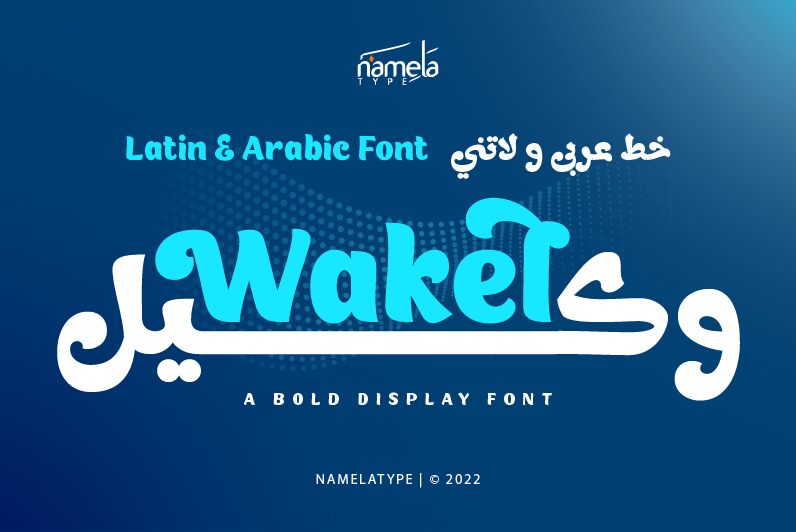
Wakel DEMO Regular
Wakel font, designed by Namela Type, is a free groovy display font with a bold weight. Expressive and casual, the rounded shapes of this typeface provide an organic feel with laid-back and relaxed aesthetics. Letters have enough quirks to intrigue onlookers and keep them interested in its content.